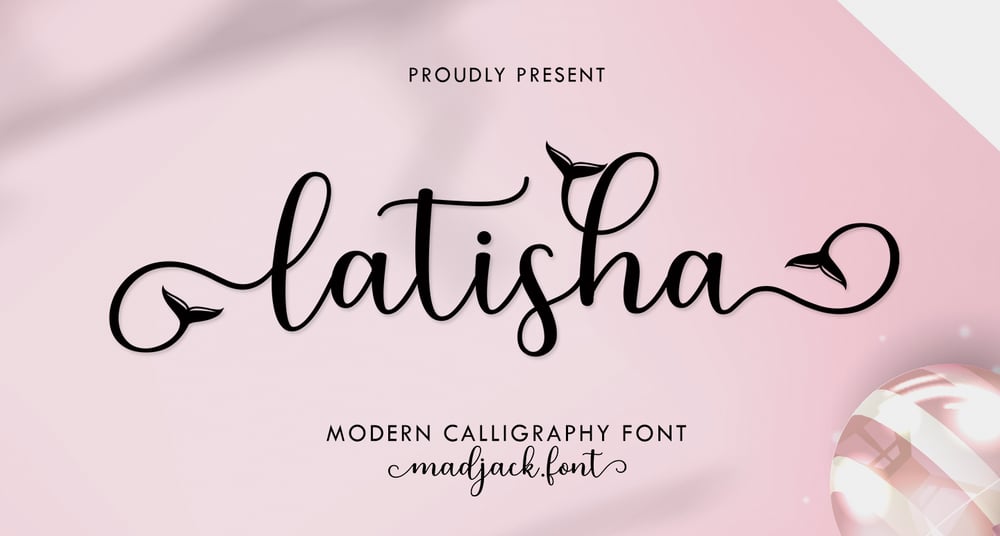
Latisha Script Font Family was designed by Zaki Muhammad and published by madjack.font. Latisha Script contains 1 styles and family package options. Latisha Script is a modern calligraphy design including Regular. This font is casual and pretty with EXTRAS. Can be used for various purposes. such as logos, product packaging, wedding invitations, branding, headlines, signage, labels, signatures, book covers, posters, quotes, and many more.Thank you, enjoy.